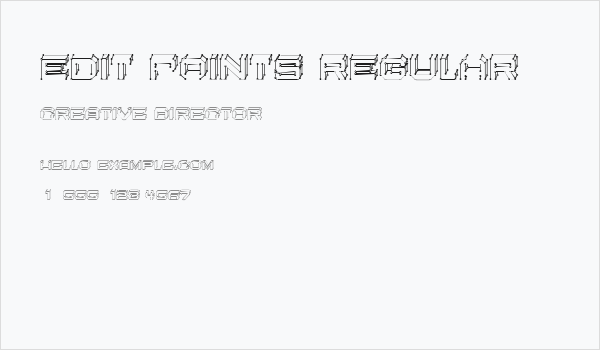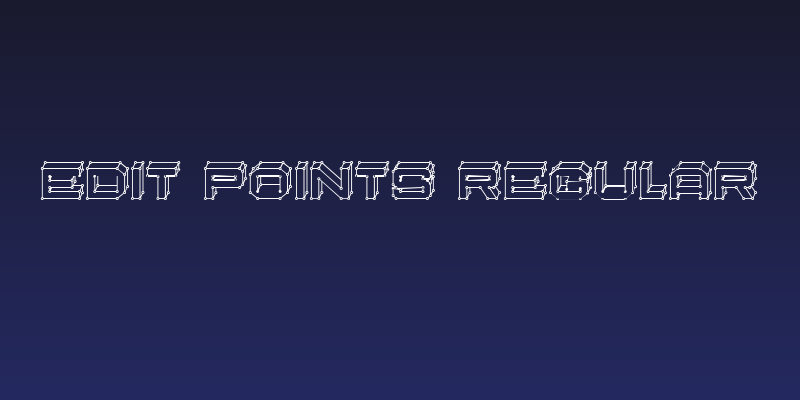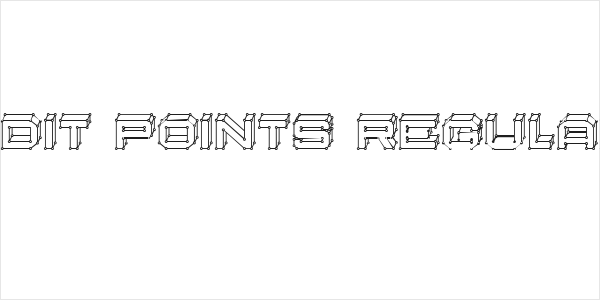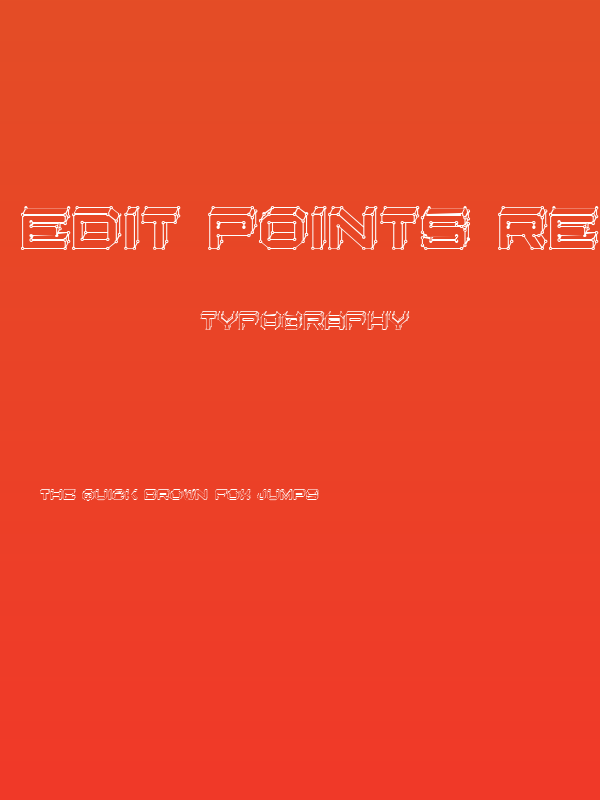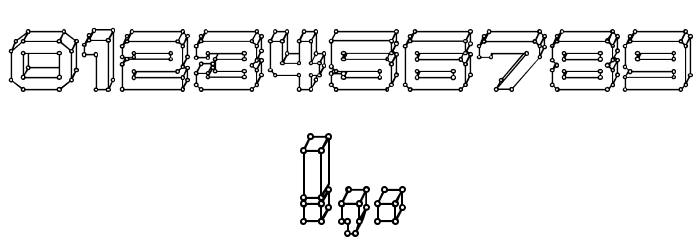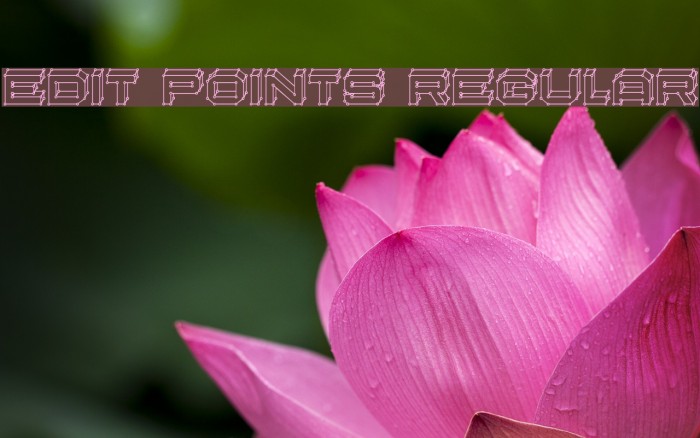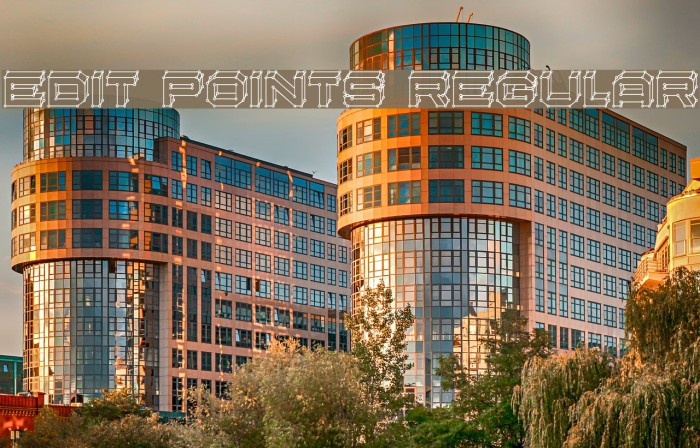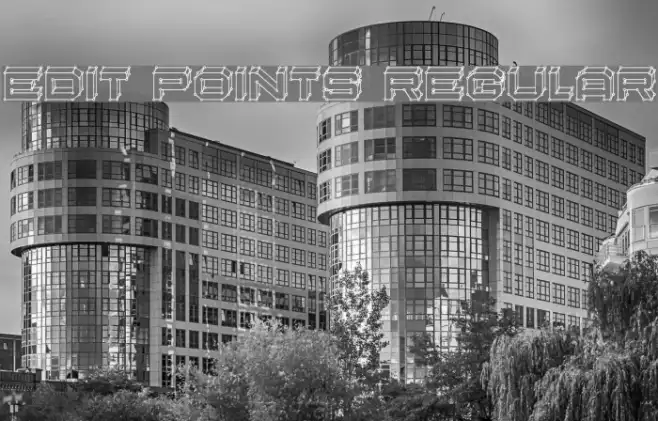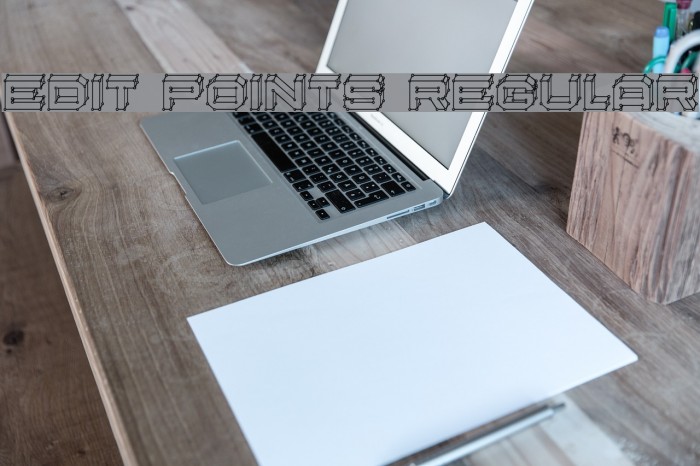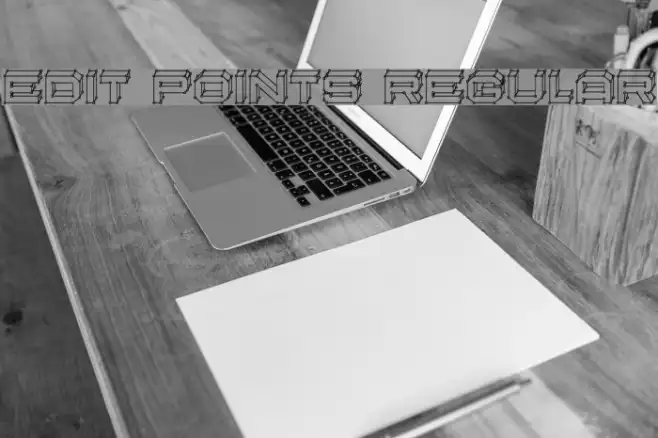
Edit Points Regular Font
Edit Points Regular Description
This font features a unique, geometric design with a futuristic and mechanical aesthetic. Each character is constructed with a series of interconnected lines and nodes, giving it a technical and digital appearance. The uppercase and lowercase letters maintain a consistent structure, while the numbers and special characters follow the same design principles. The font's style is reminiscent of circuit diagrams or architectural blueprints, making it ideal for projects that require a modern and innovative look. Its distinct appearance ensures that it stands out in any design context.
| Proposed Projects | Ideal for technology-themed designs, digital art, video game interfaces, and futuristic branding. |